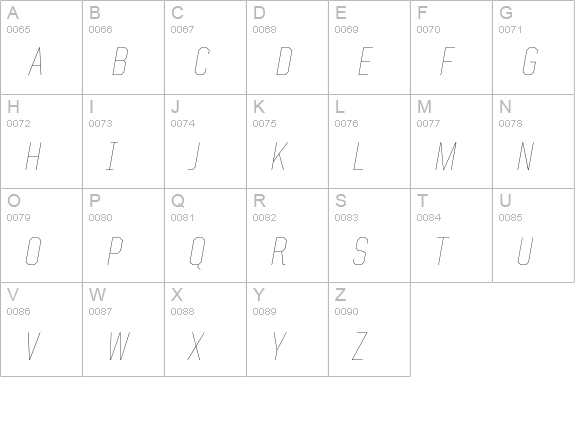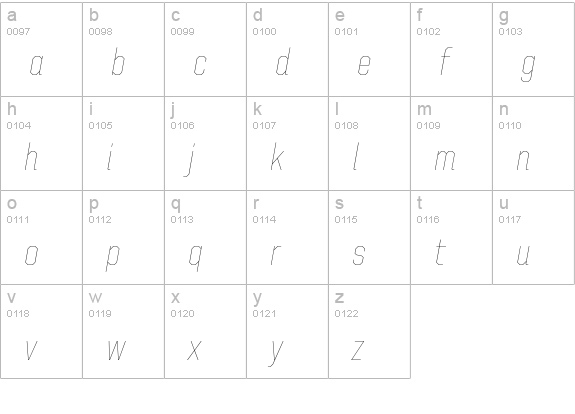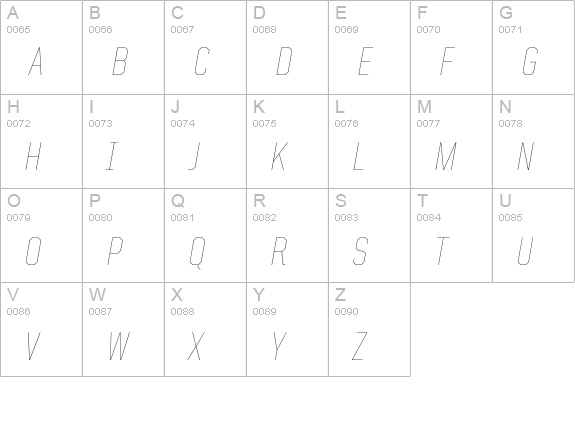
United Italic SemiCond Thin Font Details
United Italic SemiCond Thin is a delicate, low-contrast, italic variant in the United typeface family \xE2\x80\x94 well suited to fashion editorial, minimal branding, and high-contrast display.
The United Italic SemiCond Thin font is a stunning typeface that combines elegance and sophistication. With its sleek and slender letterforms, this font exudes a sense of modernity and refinement. Each character is meticulously crafted, showcasing the perfect balance between thin strokes and subtle curves. This font is perfect for projects that require a touch of finesse and grace. Whether it's for designing logos, creating brand identities, or crafting beautiful typography for editorial pieces, the United Italic SemiCond Thin font will add a touch of sophistication to any design. One of the best parts about this font is that it is freely available to download at FontsMarket.com. This means that you can easily access and use this font in your projects without any hassle. Whether you are a professional designer or a hobbyist, this font is accessible to everyone. So why wait? Download the United Italic SemiCond Thin font from FontsMarket.com today and elevate your designs to new heights of elegance and style.